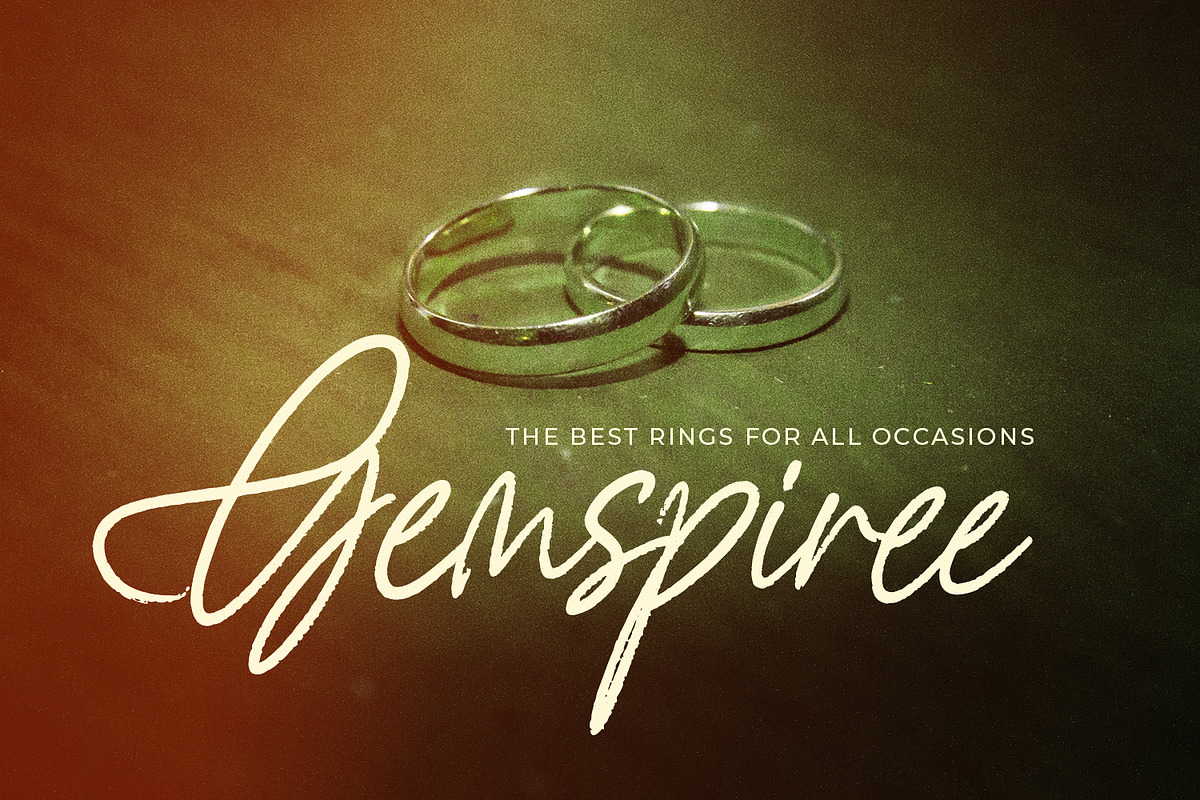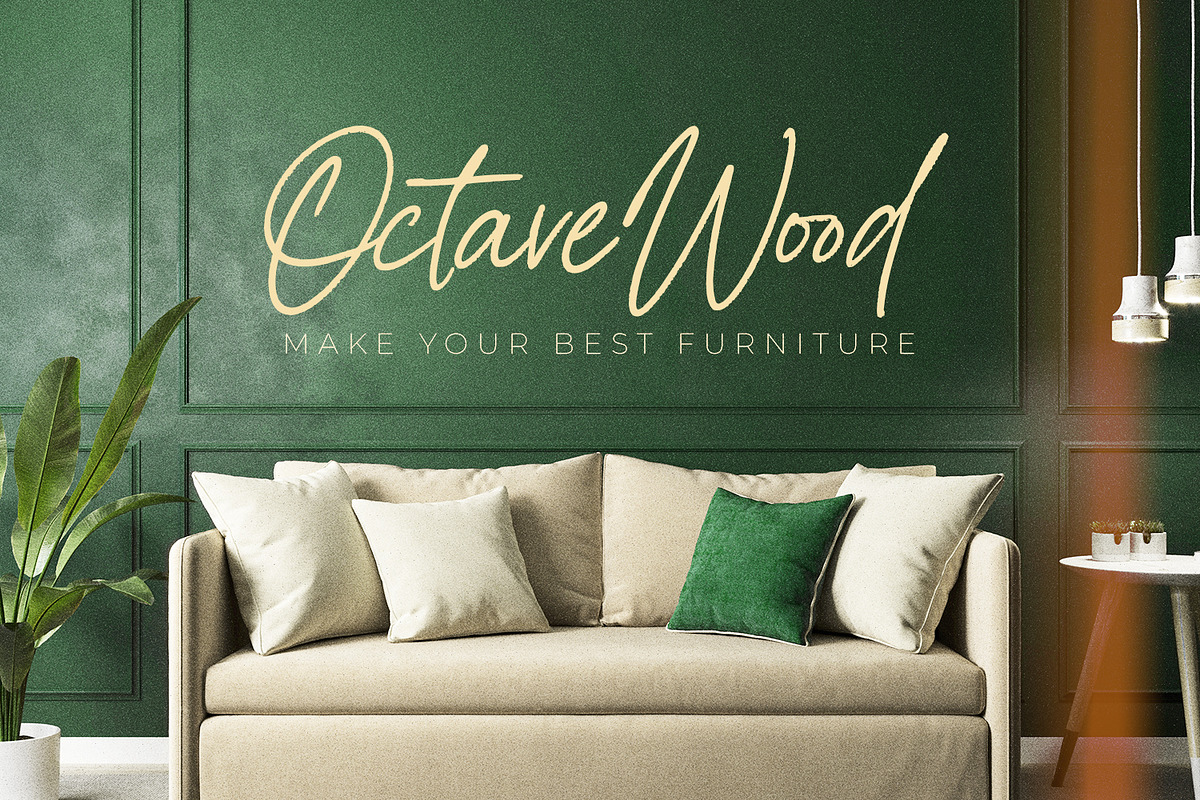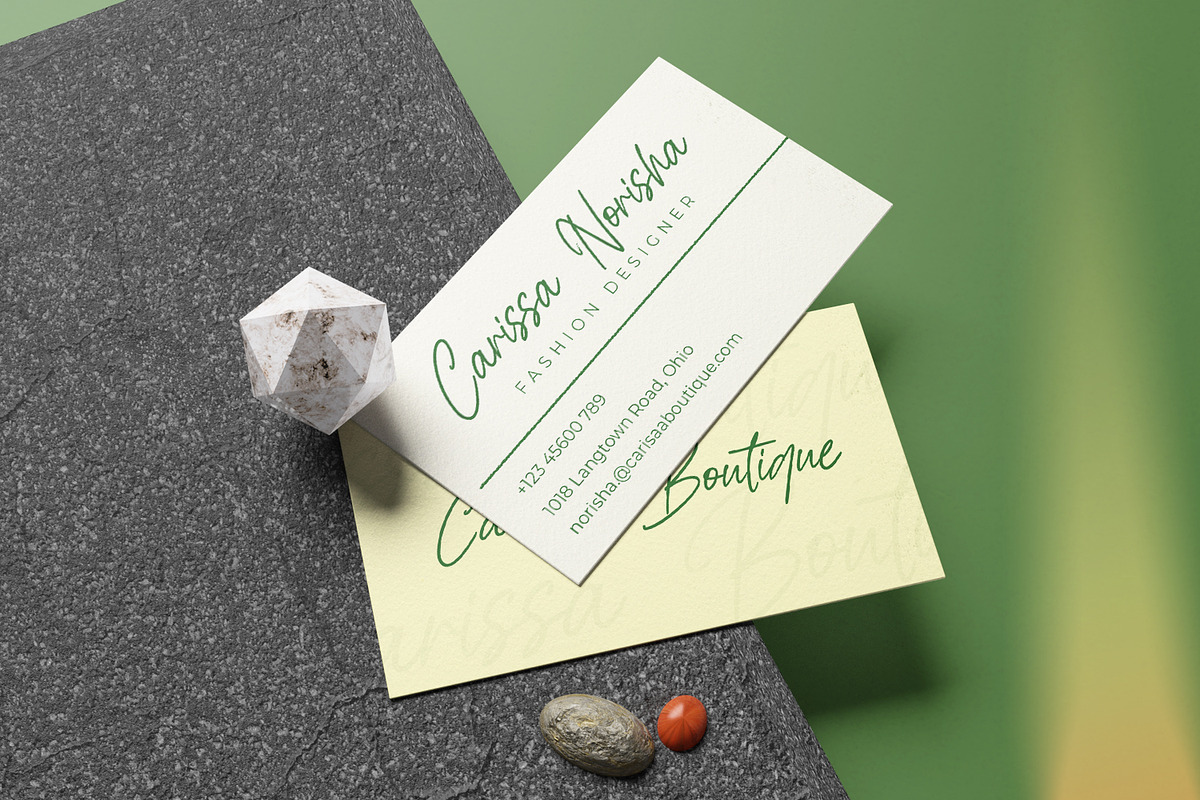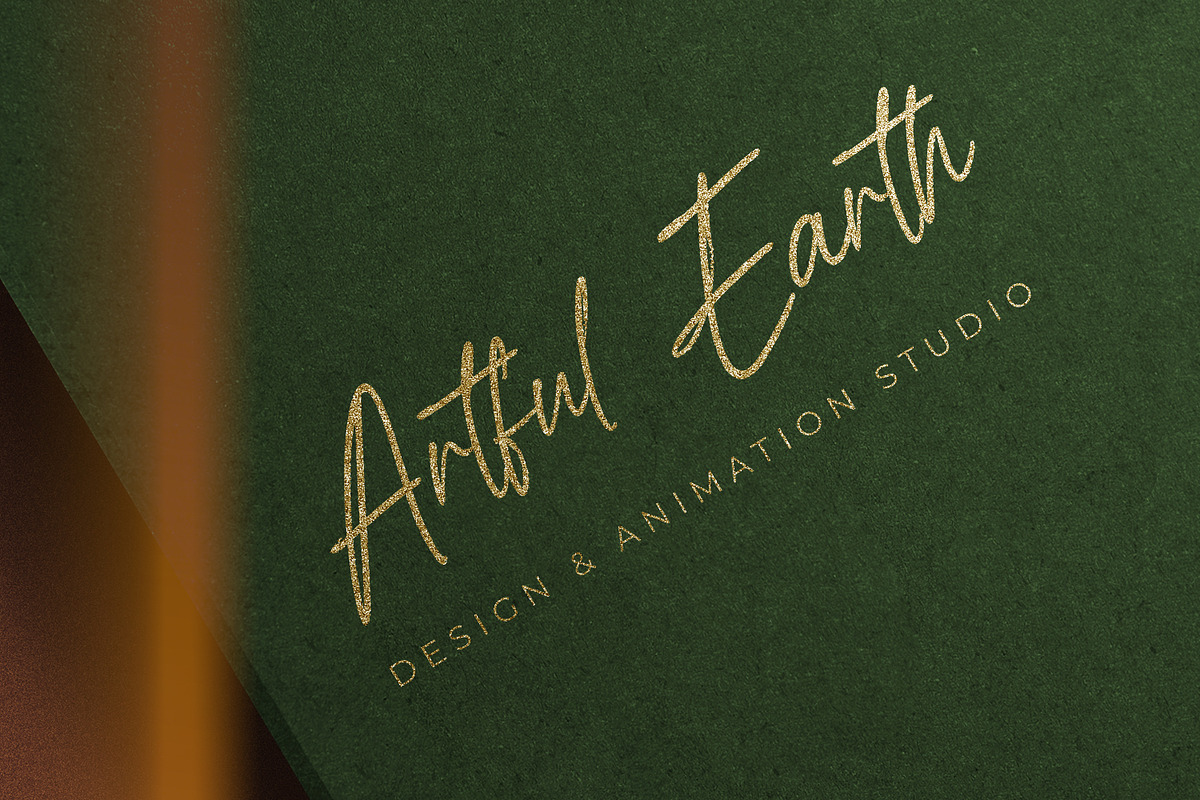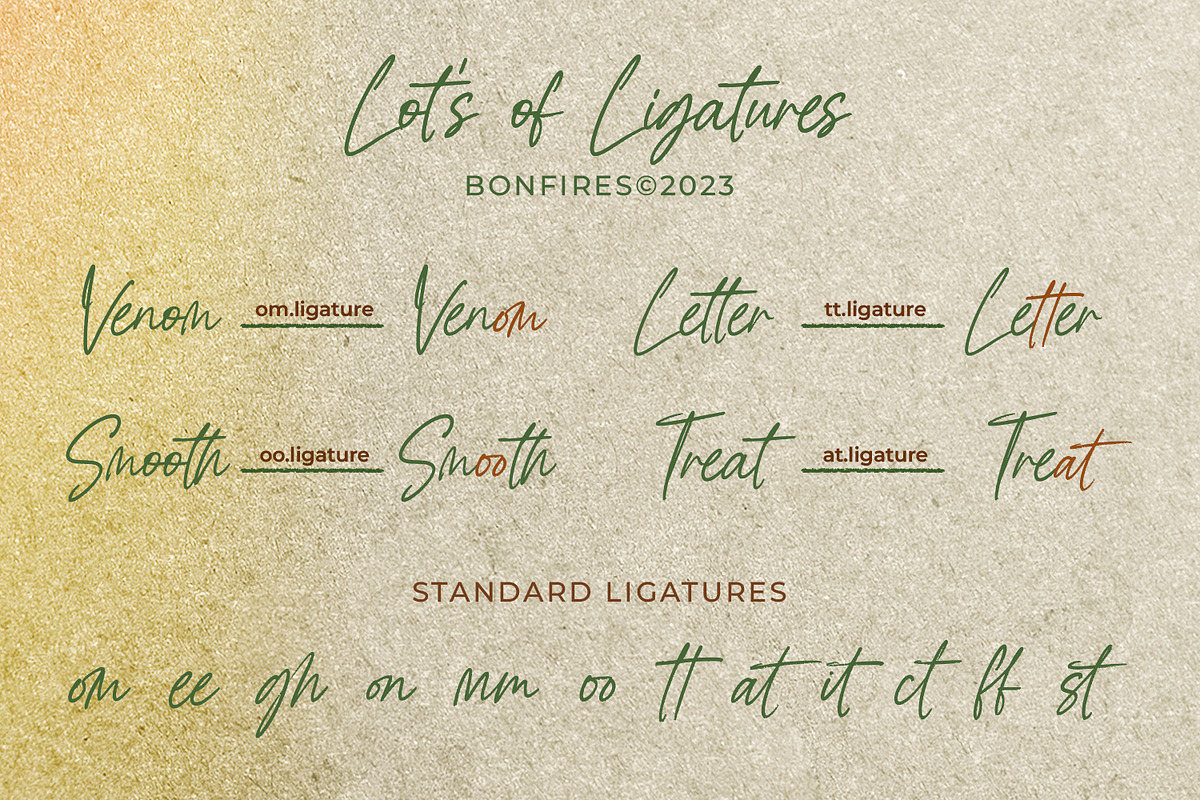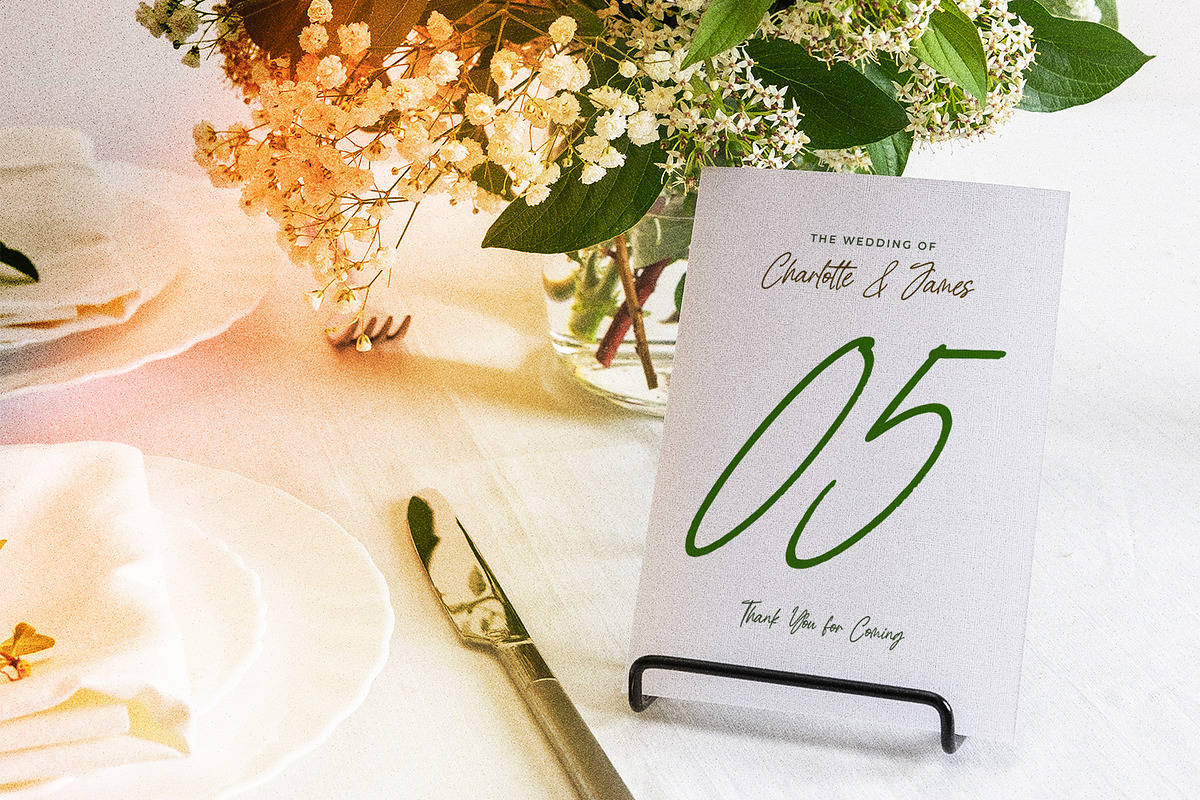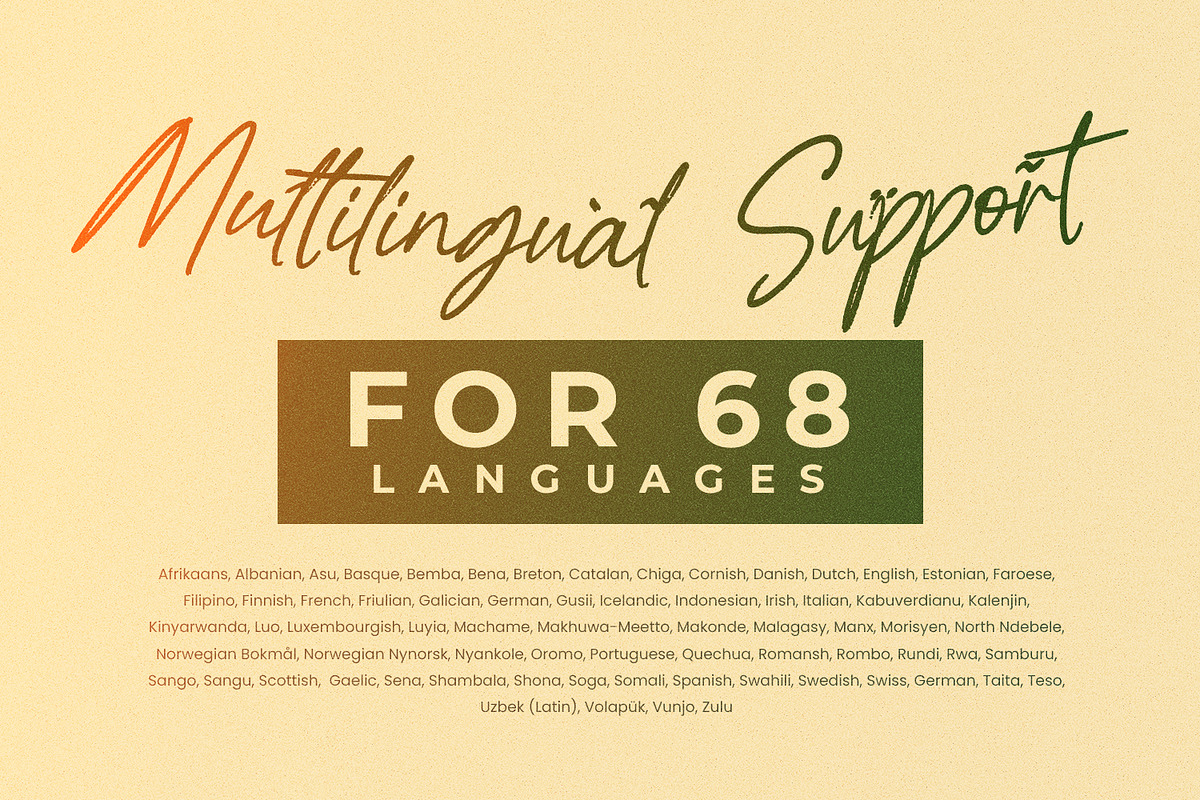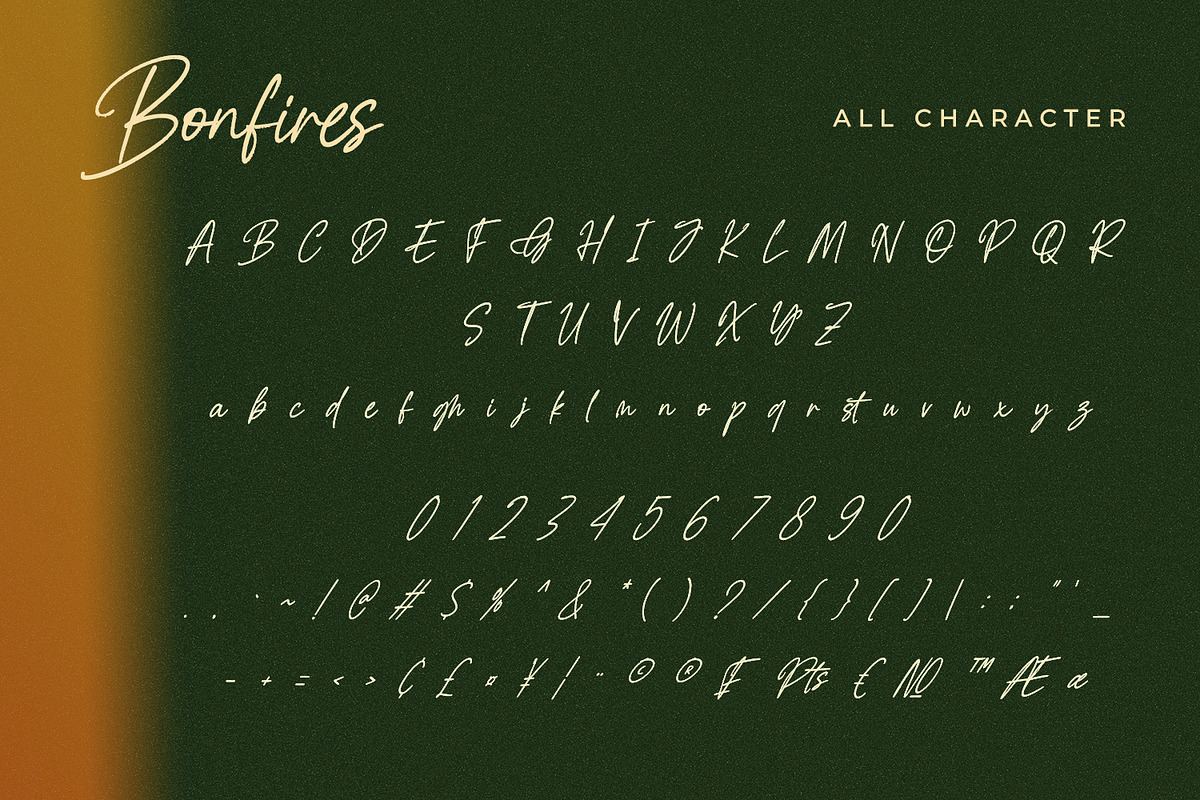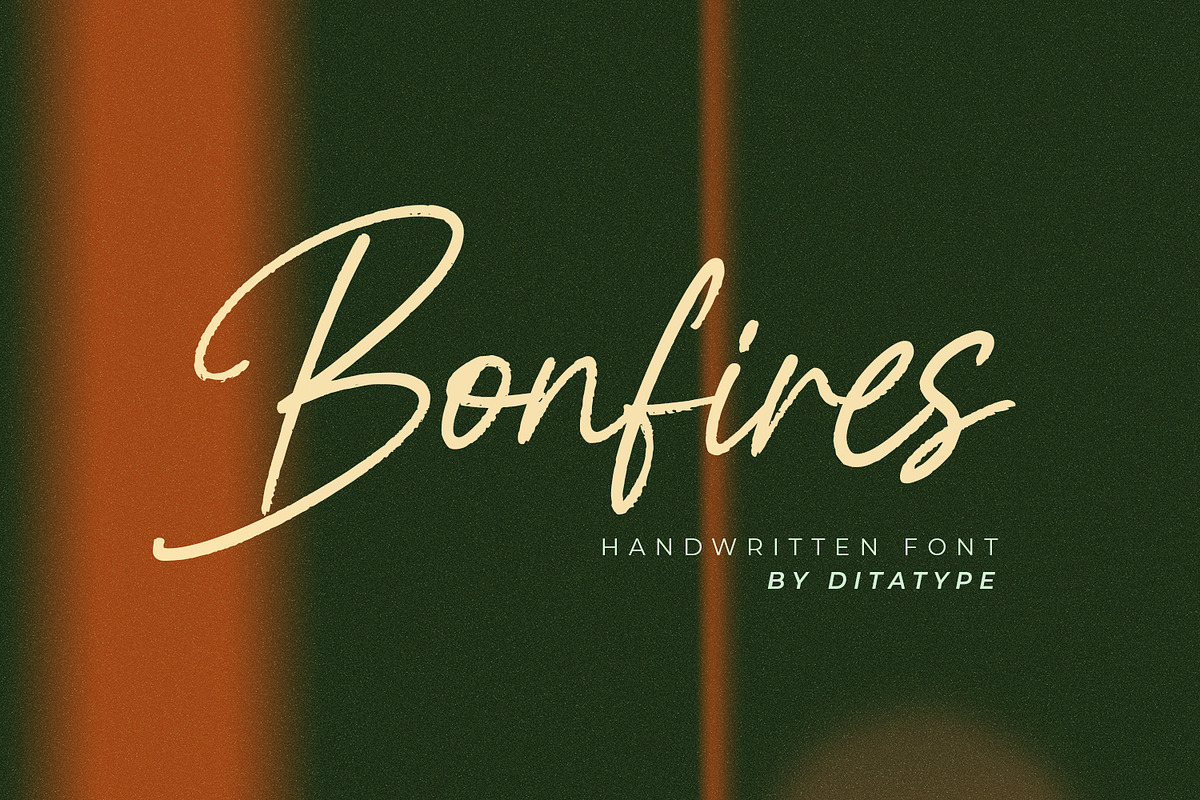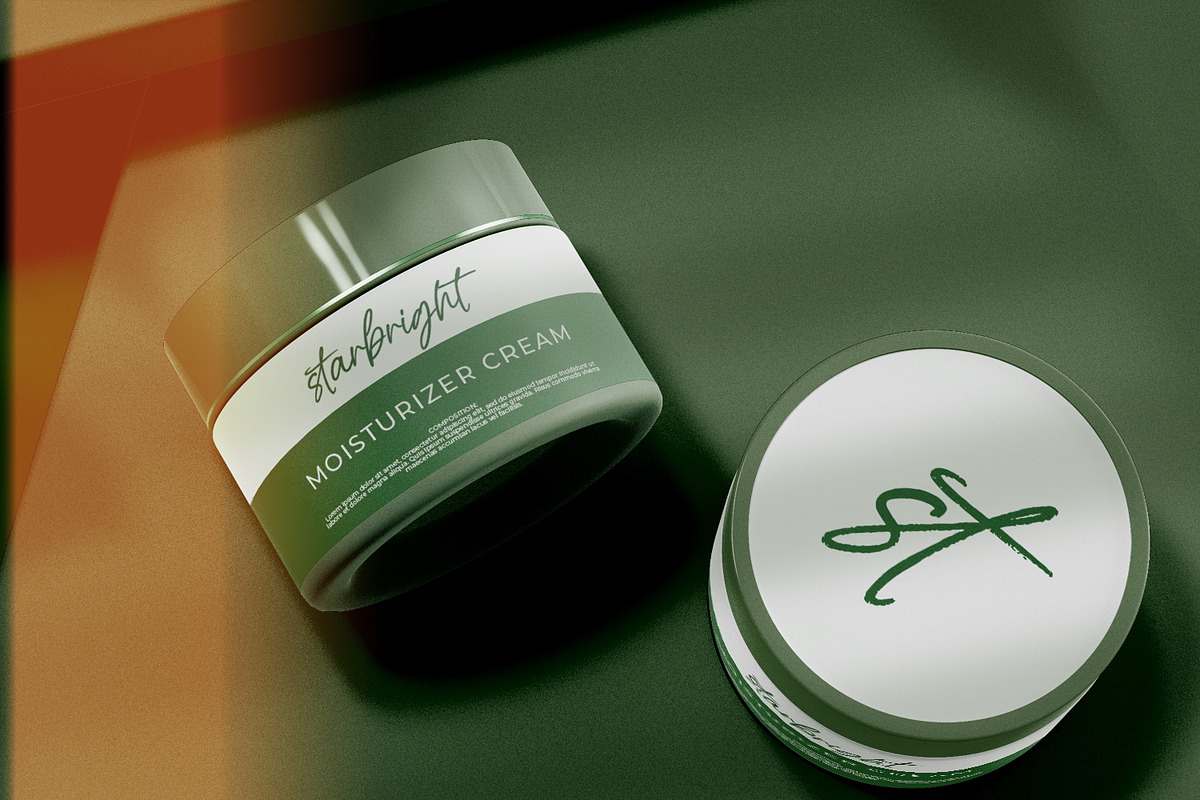
Bonfires
Bonfires is an elegant font in beautiful handwriting styles interconnected to each other to create smooth, continuous flows. The letters are shaped in curvy, smooth pen lines and the low letter contrasts can express smooth nuances. Details of this font are crucial as each curve and connection must look equal and proportional to create visually balanced, solid displays. Furthermore, its smooth, connected texts are able to let readers’ eyes stay warm and comfortable. In addition, you may enjoy the available features here.
Bonfires fits best for any design projects requiring casual, personal displays such as greeting cards, merchandise designs, and any casual-related designs. In web designs, this script font is perfectly applicable for blogs and sites to show intimate and personal nuances to the contents. Find out more ways to use this font by taking a look at the font preview.